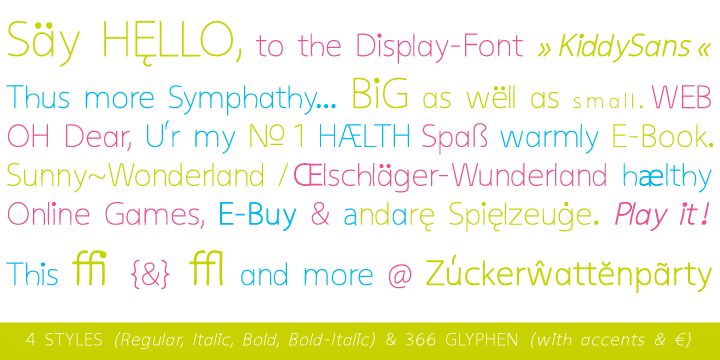
kiddySans.otfkiddySans_bold.otfkiddySans_fat.otfkiddySans_light-italic.otfkiddySans_bold_italic.otfkiddySans_fat_italic.otfNote of the authorHeadline Font / Display Font / Sans Serif Font "kiddy Sans"
with 8 stlyes (regular, light, bold, fat + 4x italic) & 366 glyphs inkl. accents &